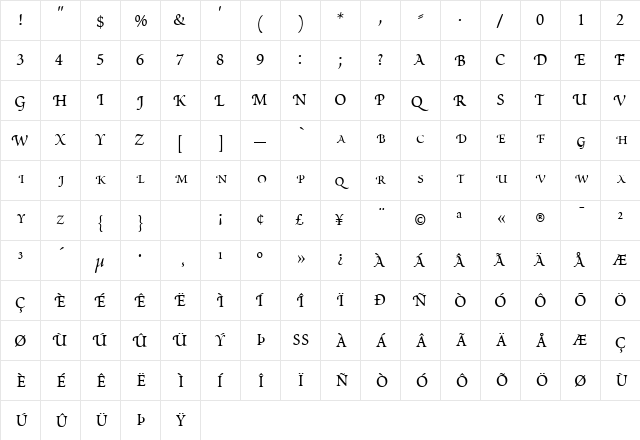
FiddlerScript Regular
Design Context for FiddlerScript Typeface
FiddlerScript flows with the natural rhythm of handwritten lettering, making it ideal for designs that call for warmth and personal expression.
Font Pairing: Combine FiddlerScript with a simple geometric sans for maximum contrast — the tension between flowing curves and clean structure is a classic typographic pairing.
Pro Tip: Use FiddlerScript for short runs of text — names, titles, or taglines. Extended body copy in script faces tires the eye quickly.